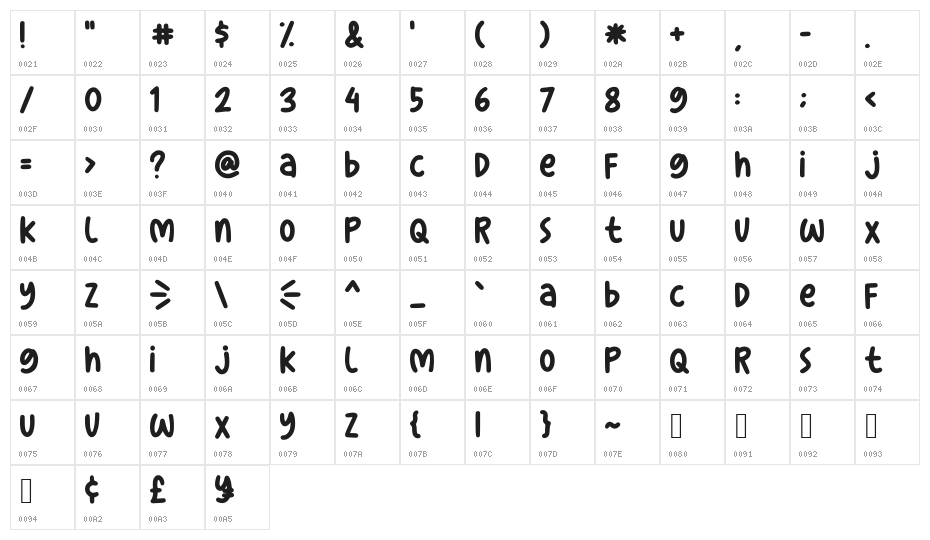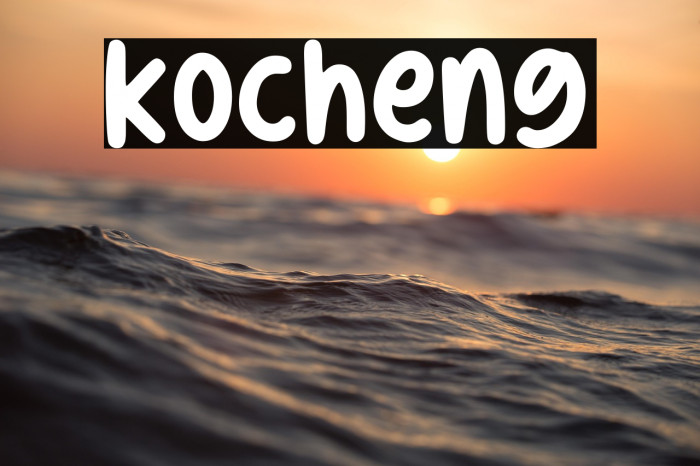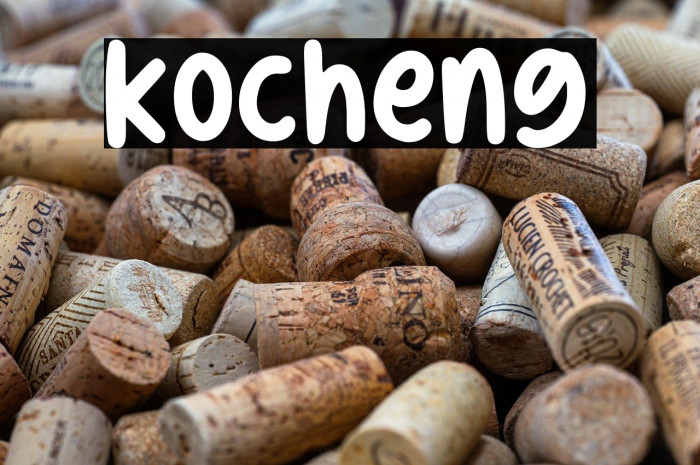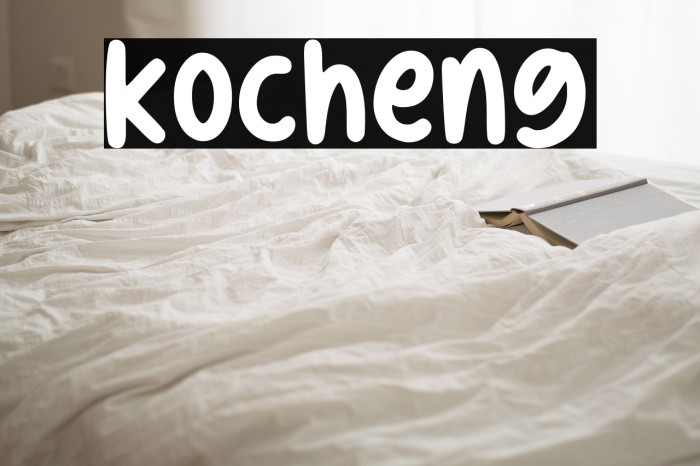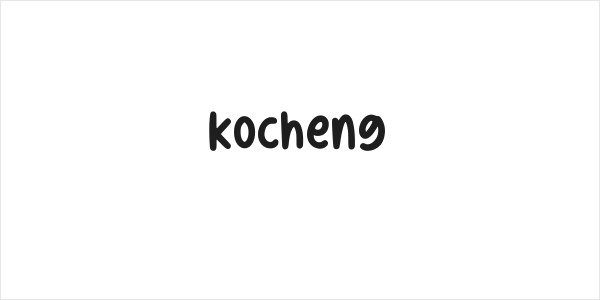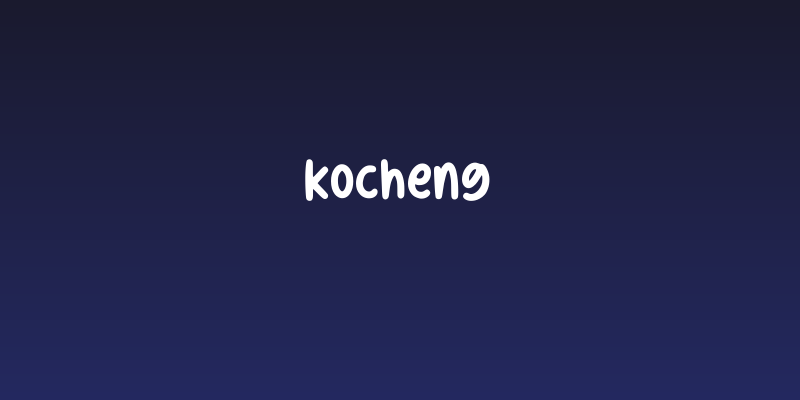
Kocheng Font
| Gesamtstil | Playful, Casual |
| Vorgeschlagene Projekte | Ideal for children's books, playful branding, casual invitations, and creative posters. |